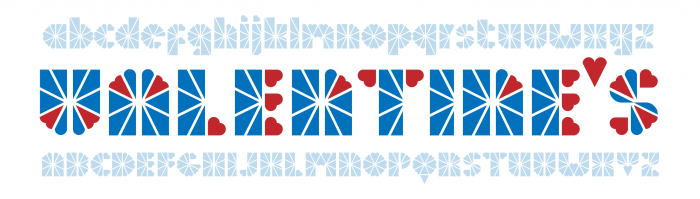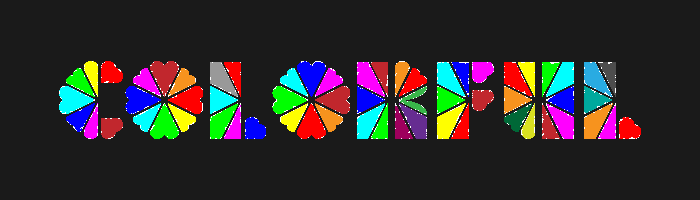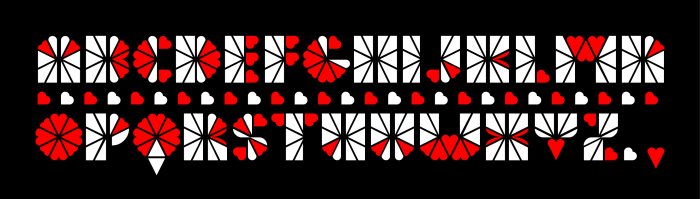
Dornach is a town/village in Switzerland where I'm on a family visit right now. It's very quite here, with lovely people who always greet me, asian looking guy, with smile ). The "o" was created not long after LoveComp's announcement, but it's here, in Dornach, with some spare time in my hand, I could finally find consistent development for it. A LoveComp entry #2 that's still in progress, other letters and samples will hopefully come soon. Thanks & Enjoy!
For a second, I thought to myself, "Hey, I didn't release this one yet." Then I realized it wasn't mine. Its almost identical and I wanted to share it so you can see the similarities, but since this is a LoveComp entry, I'll wait til after the competition. Well done architaraz! I like the prolific heart iterations.
Creative arrangement of those different hearts. Some letters look as if they are gift-wrapped :)
I should say that Uppercase has been fully re-designed due to unsatisfactory shapes I did before. The options for this design are pretty flexible under the condition of letter width guide's update, so I plan to come back to this. Thanks.